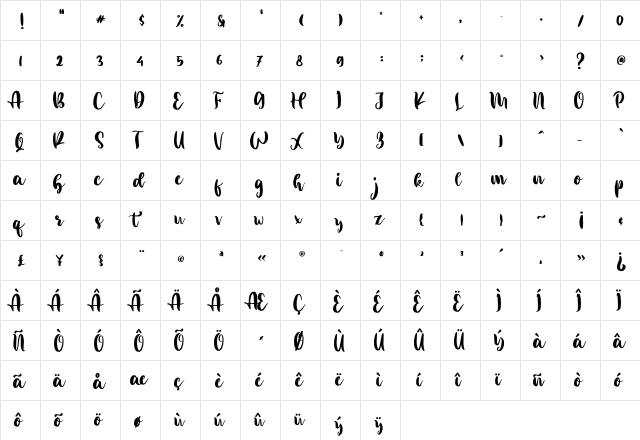
Better Weather Regular
| Designer | Fatmawati |
Design Context for Better Weather Typeface
Better Weather is a composed and adaptable typeface that performs quietly and consistently across a wide range of design contexts.